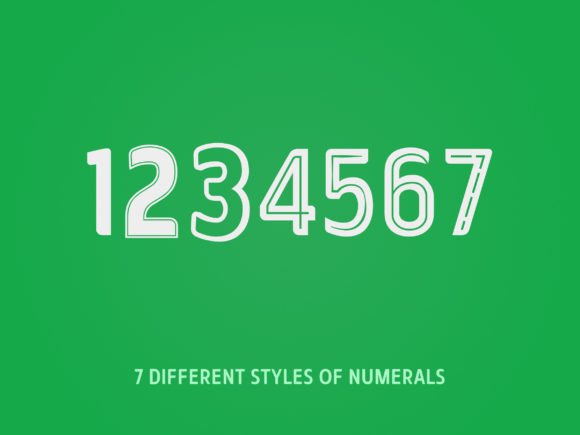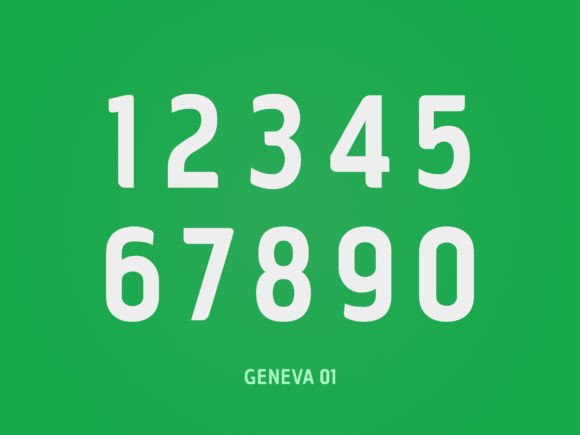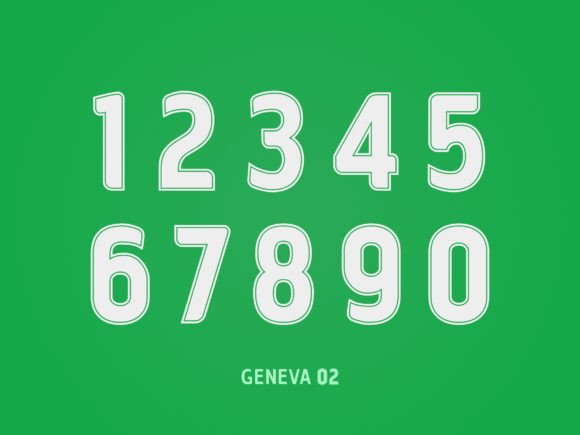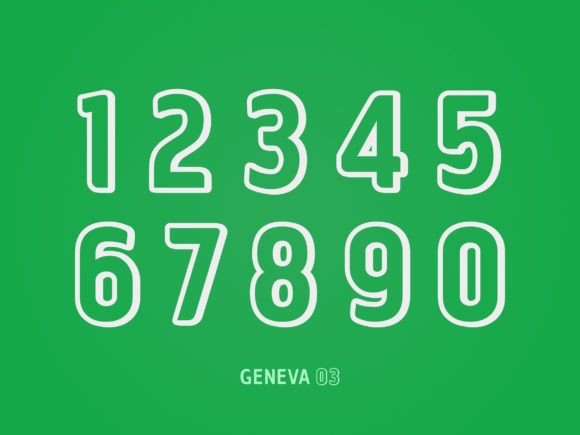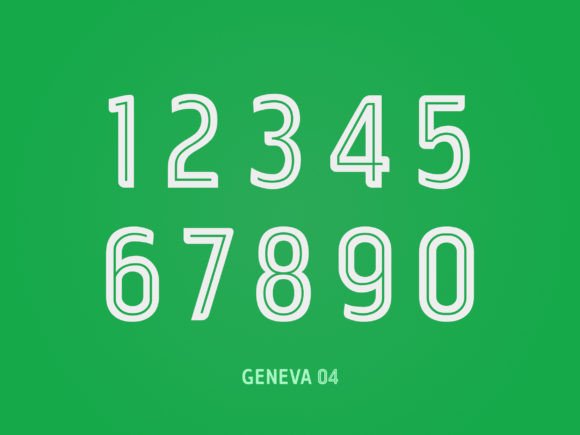
The Geneva Font: A Designer’s New Best Friend for Sports and Beyond
I still remember the frustration of working on a football jersey design project, only to hit a roadblock when searching for the perfect font. The client wanted something clean, modern, and highly legible, but my go-to fonts just weren’t cutting it. That’s when I stumbled upon the Geneva font, and it quickly became my go-to for sports designs and beyond.
What Makes Geneva Special?
Geneva is a versatile font family designed specifically for sports jerseys, but its clean, sans-serif style makes it suitable for a wide range of design projects. Here are some key features that make Geneva stand out:
- ✅ 7 Different Styles of Numerals: Perfect for creating unique and varied designs.
- ✅ San Serif Typeface: Clean and modern, ideal for both digital and print designs.
- ✅ OpenType Features: Offers advanced typographic capabilities for creative freedom.
An Honest Review: The Good and the Quirks
What I Love About Geneva ✨
- ✨ Versatility: Works great for sports jerseys, but also excellent for posters, flyers, and digital media.
- ✨ Legibility: Highly legible, even at smaller sizes.
- ⚠️ Limited Language Support: Primarily designed for English and similar languages; might not support more complex scripts.
- ⚠️ Glyph Limitations: While it has a wide range of numerals, some users might find the character set a bit limited for non-numerical designs.
- 🤔 Stylistic Limitations: While it has 7 numeral styles, it might not offer as many stylistic variations for letters.
The Story Behind Geneva: Designer Inspiration
Geneva was created with the sports industry in mind, specifically for jersey designs. The designer aimed to create a font that was not only stylish but also highly legible, even at a distance. This focus on functionality makes Geneva a valuable tool for designers working on sports-related projects or any design that requires clear, bold typography.
Q: What is the Geneva font best used for?
A: Geneva is primarily designed for sports jerseys, but its clean and modern style makes it suitable for a wide range of design projects, including posters, flyers, and digital media.
Q: Does Geneva support OpenType features?
A: Yes, Geneva supports OpenType features, including stylistic alternates and multiple numeral styles, giving you creative flexibility in your designs.
Q: Is Geneva suitable for body text?
A: While Geneva is highly legible, it’s primarily designed for headlines and display text. For body text, you might prefer a font with more traditional typographic characteristics.